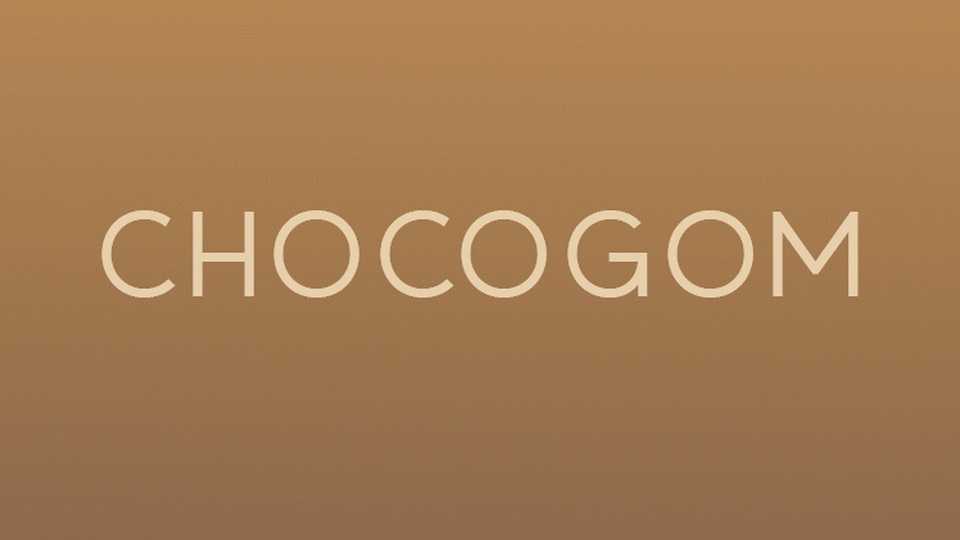
Download Chocogom font, a thin lettered and simple sans serif typeface. With smooth and clean lines, this font works beautifully for logos, branding, and web headings.